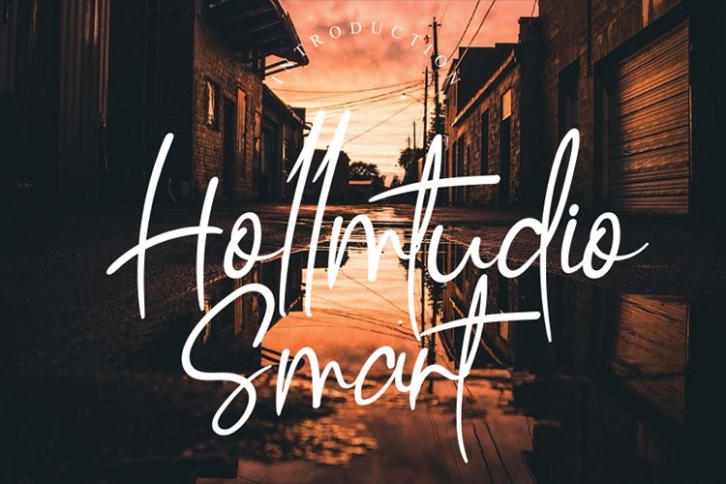
Hollmtudio is a trendy and unique font with an authentic style. It was designed by andikastudio1 and it's a great choice for creative people who need such a font. It was released on May 28, 2020 and the file size is 17.55 MB. Hollmtudio will add an organic vibe to any design idea!